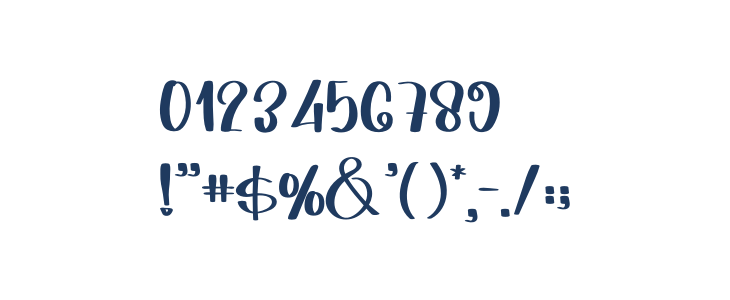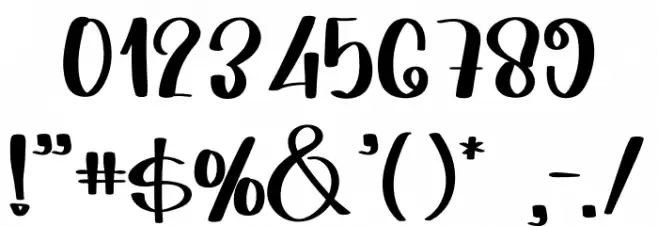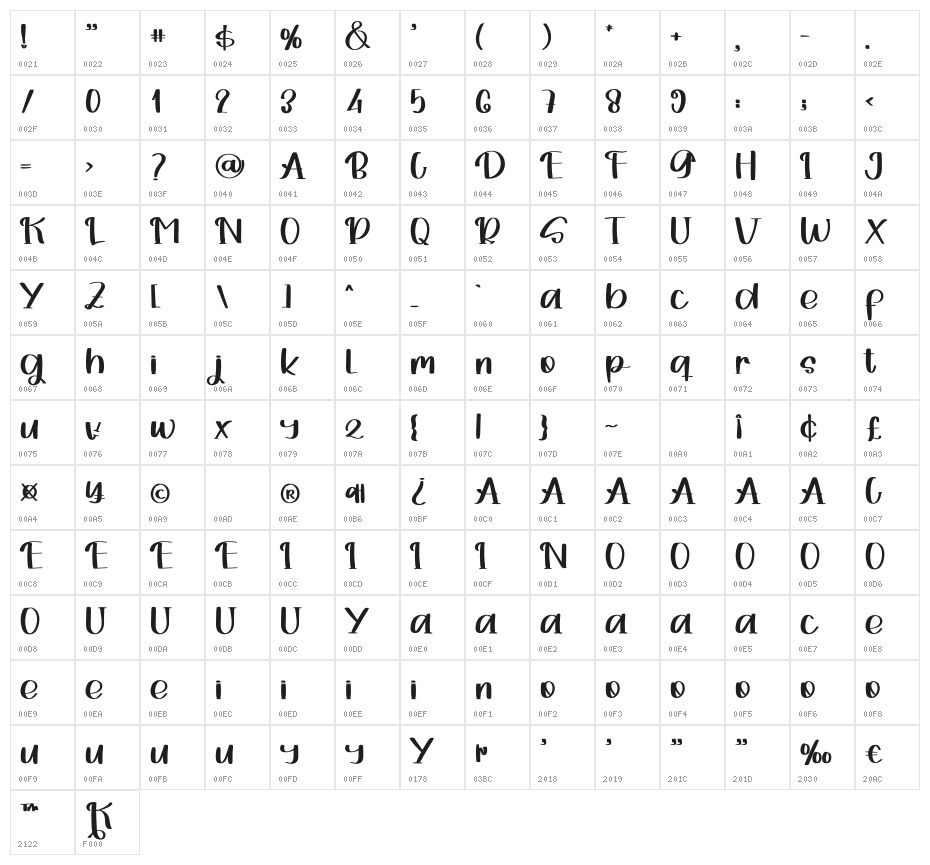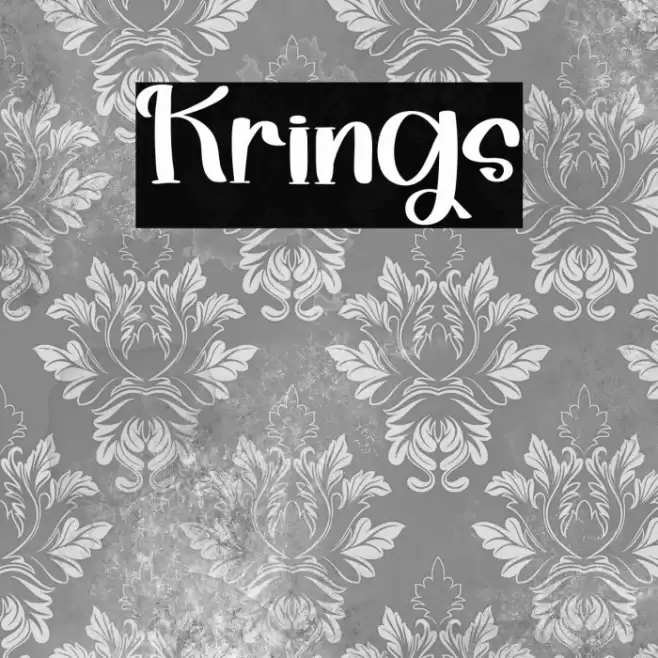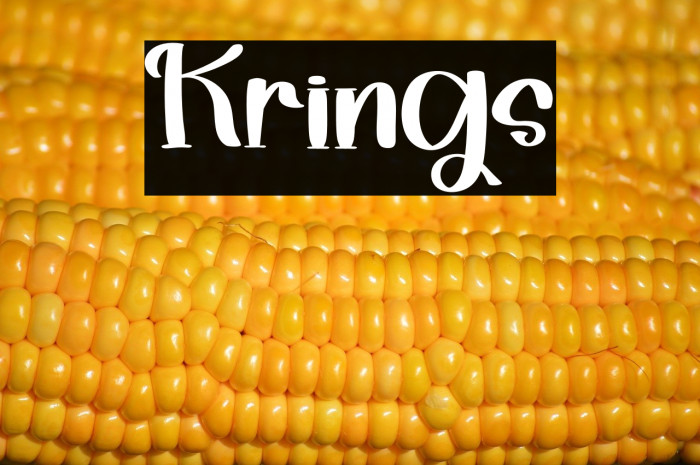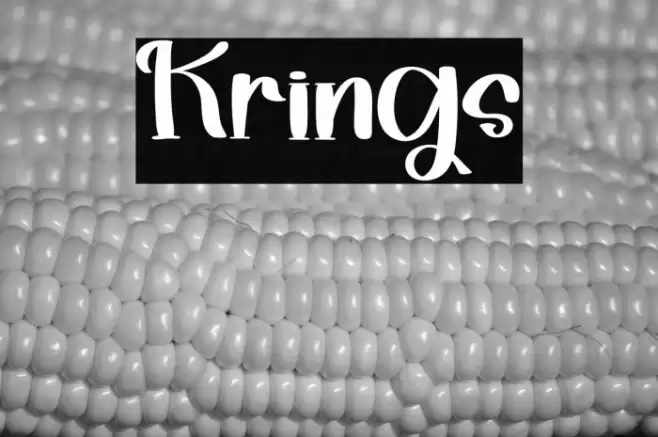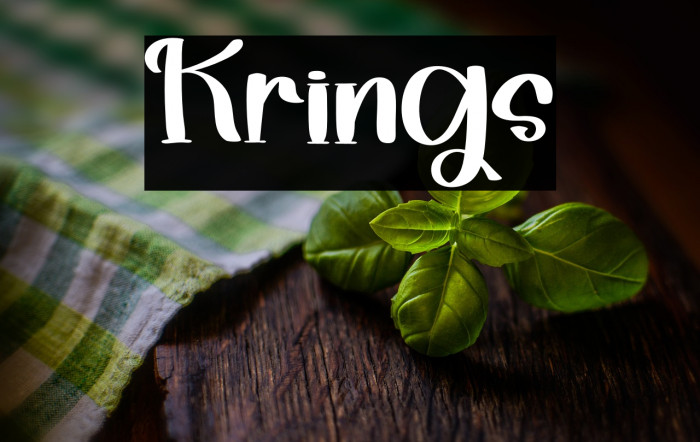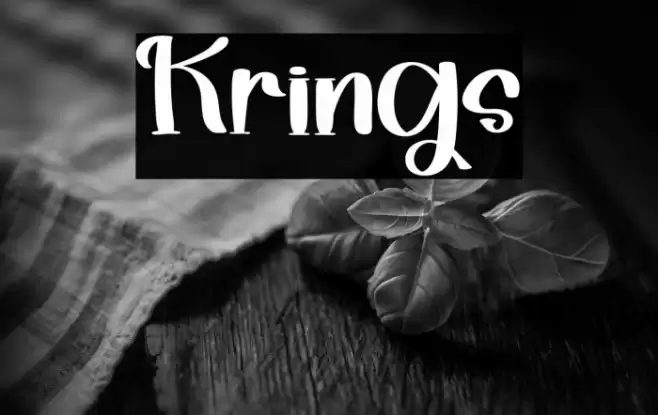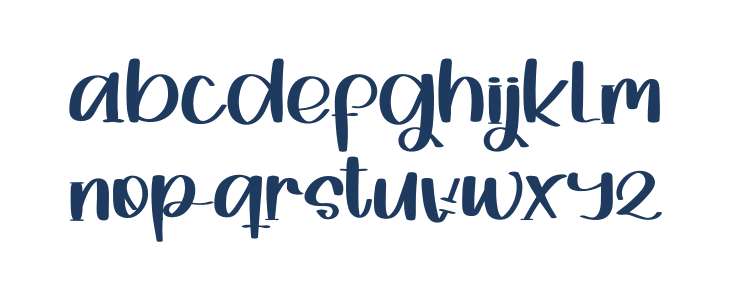
Krings Font
Krings Description
This font features a playful and energetic script style with bold, flowing strokes that create a sense of movement and dynamism. The characters are designed with a hand-drawn aesthetic, giving them a personal and informal feel. The uppercase letters are slightly more structured, while the lowercase letters exhibit a more casual and relaxed appearance. The numbers and special characters maintain the same lively style, ensuring consistency across all elements. This font is ideal for projects that require a touch of whimsy and creativity.